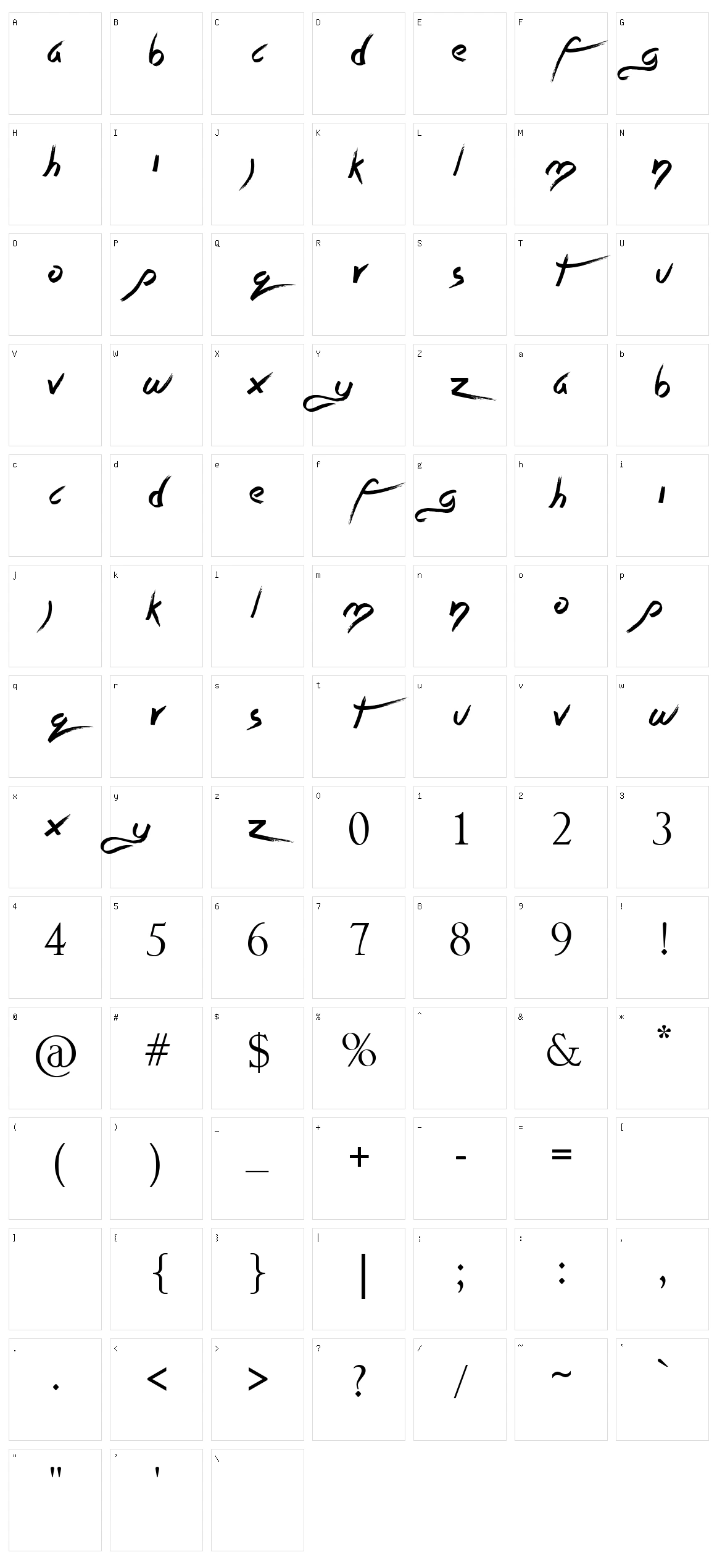
The free font Quite Chocolatey is carefully designed by JSH creates, showcasing a thoughtful balance of creativity and usability and falls under the Script font style. When you download the ZIP file, it contains only 30 KB of font files, making it lightweight and quick to download. Please review the license details below to understand permitted usage and distribution rights. If license information is not available, we recommend using this font for personal projects only or contacting the author directly for commercial usage permissions.